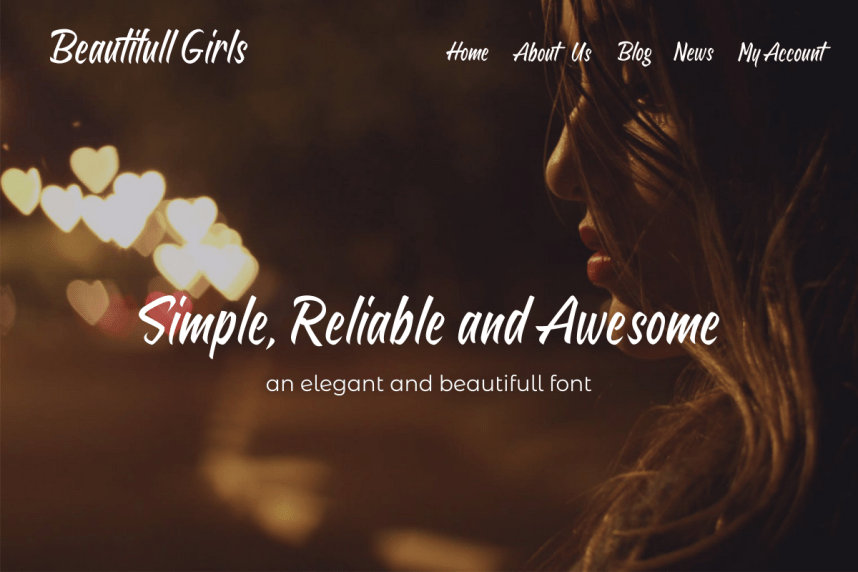
Sheptember Script Font
Sheptember Script Font – Free Demo
Introducing Arturo! It is designed by Francesco Canovaro and shared by InitiaType. Sheptember font is a simple and classy font, comes with ligatures. this font looks elegant, classy, readable, stylish, catchy and easy to use. The Sheptember Font is the great choice for watermark on photography, signature or signature logo design, quotes, album cover, business card, and many other design project. From business cards to photo watermarks, The Sheptember is here to elevate your work to the highest level.